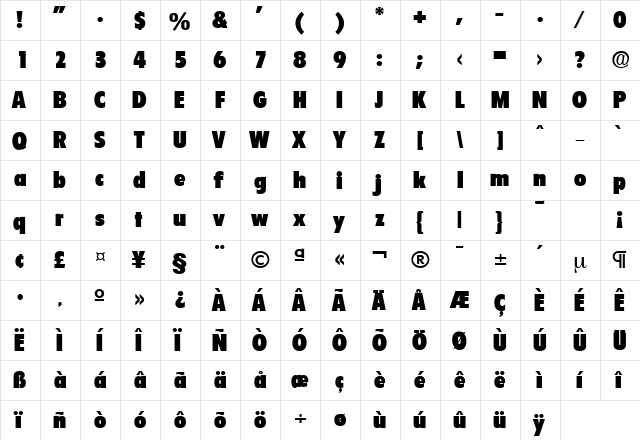
Florida-Serial-Black Extra Heavy
Design Context for Florida-Serial-Black Typeface
Florida-Serial-Black is a composed and adaptable typeface that performs quietly and consistently across a wide range of design contexts.